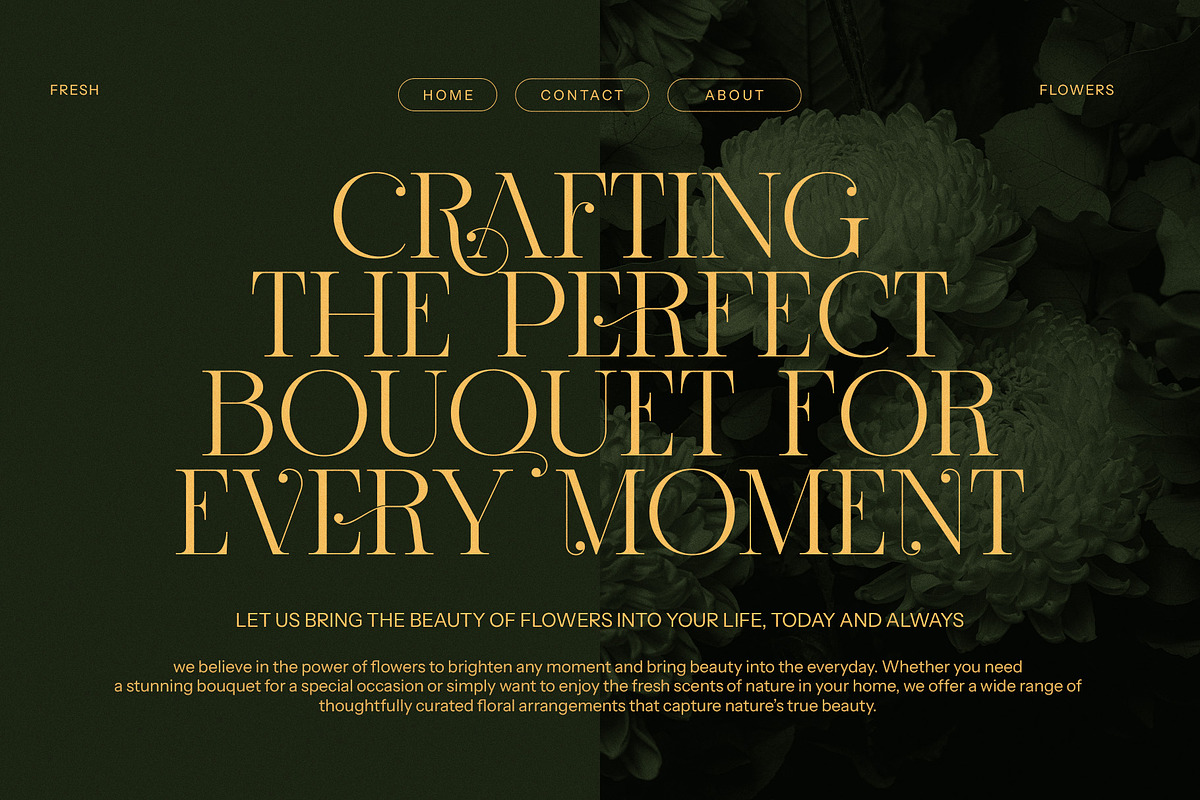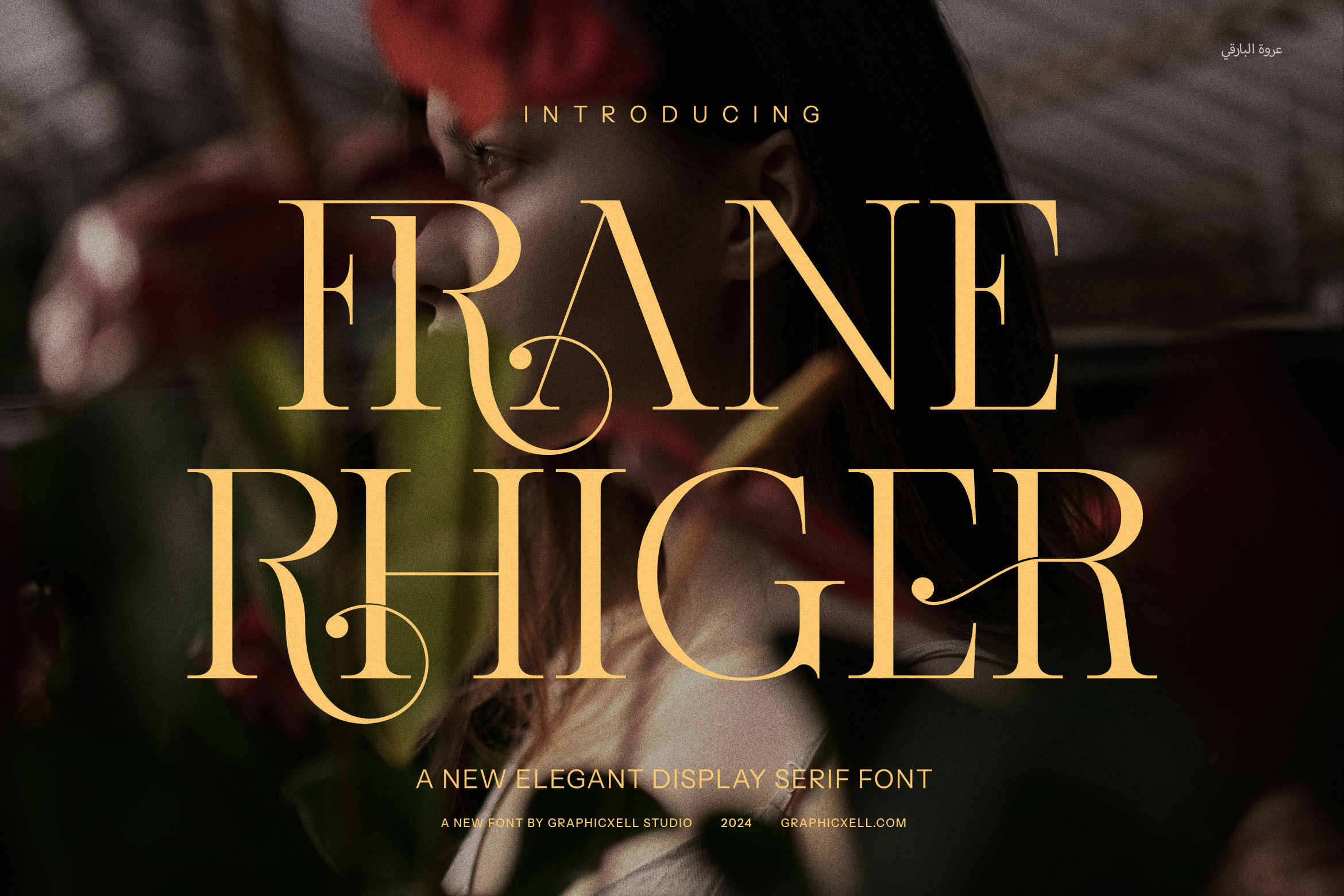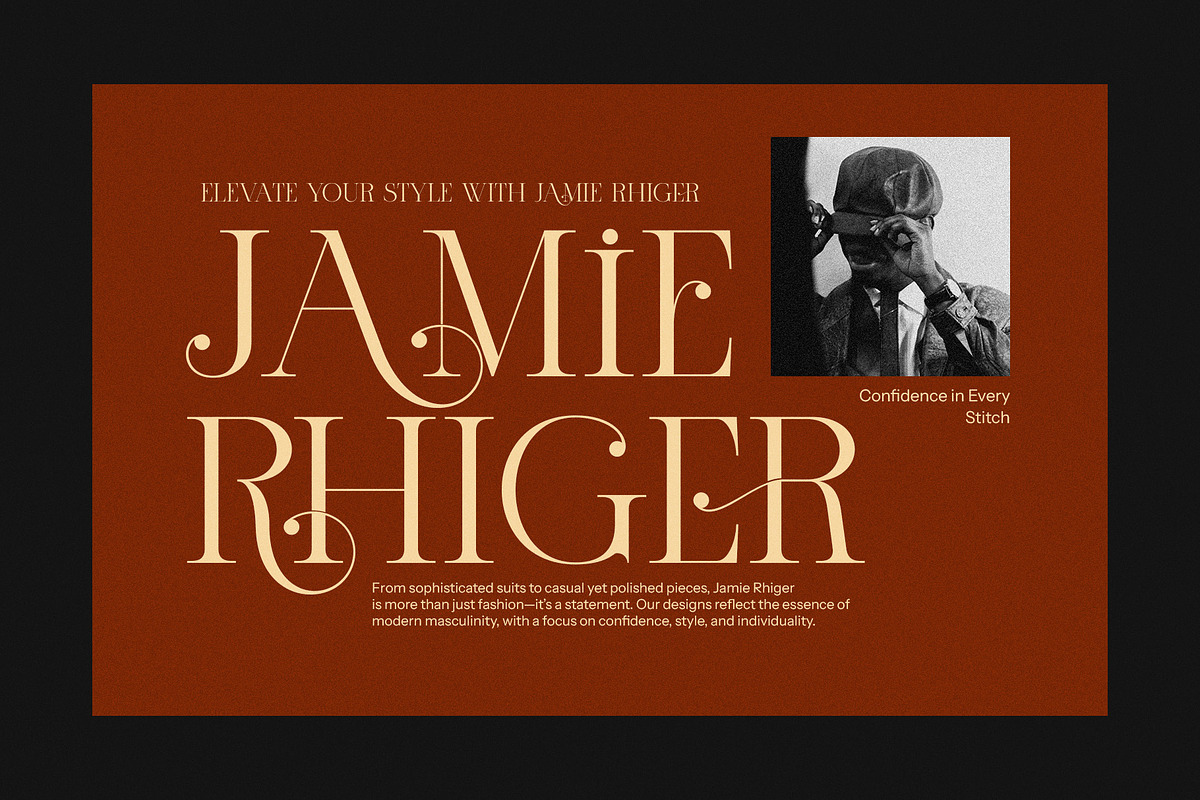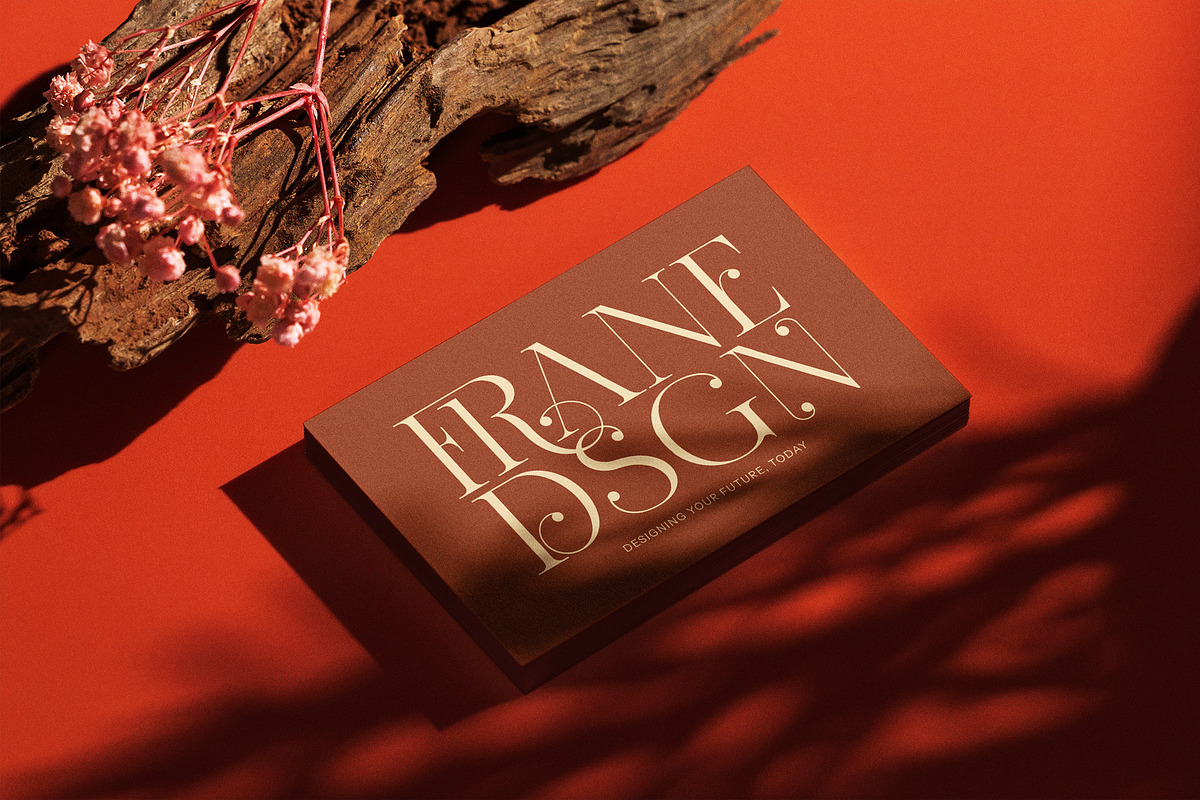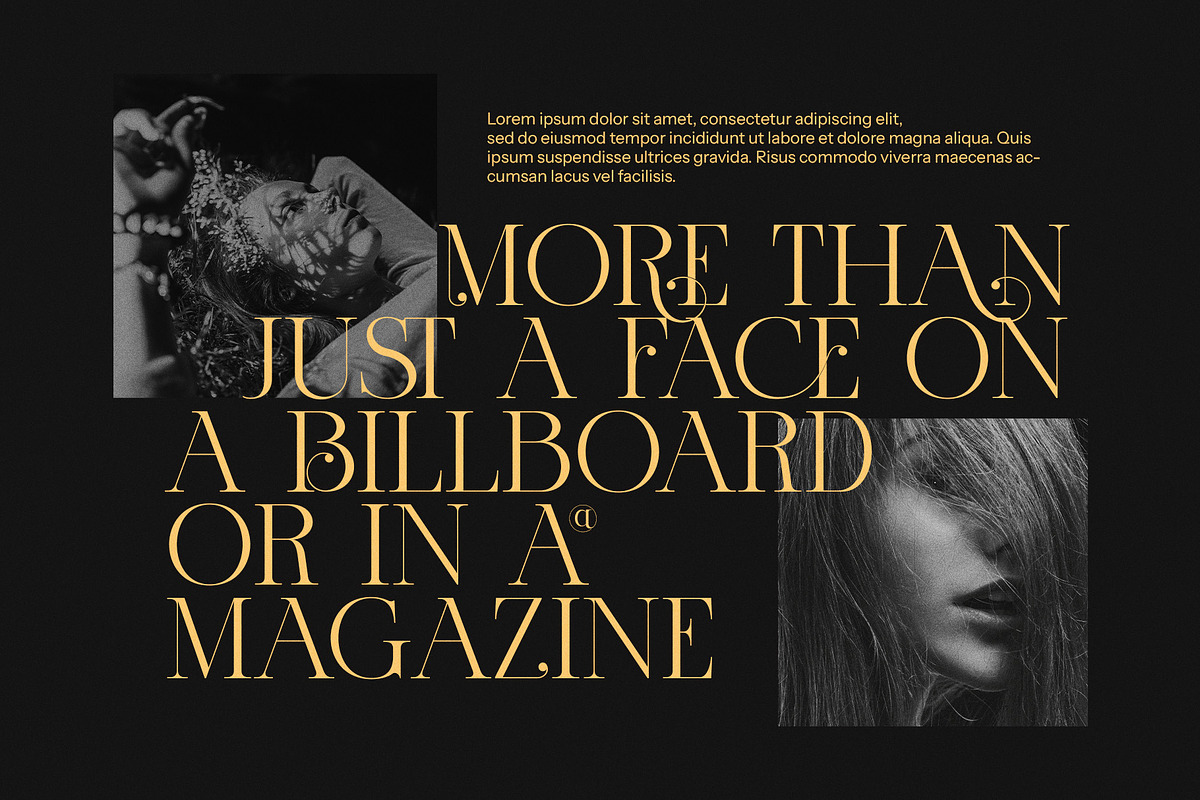
Frane Rhiger Elegant Serif Font
Frane Rhiger Elegant Serif Font is a captivating blend of modern elegance and classic sophistication, crafted to elevate your design projects with its distinctive character. Its sleek serifs and refined contours create a font that is both visually stunning and highly versatile, making it an excellent choice for a wide range of applications.
What makes Frane Rhiger truly exceptional is its exquisite ligatures and alternates, which add a unique touch of artistry to every design. These features allow for creative freedom, enabling designers to craft custom looks that exude elegance and style. Whether you’re working on a luxury brand logo, a sophisticated website, or a high-end magazine layout, Frane Rhiger brings a sense of refinement and grace to the table.
Perfectly suited for upscale branding and editorial designs, this font excels in creating a polished and professional impression. Its clean lines and balanced proportions ensure readability, while its artistic details add a layer of sophistication that appeals to discerning audiences. From boutique branding to gourmet food packaging, Frane Rhiger is a versatile tool that enhances the visual appeal of any project.
Frane Rhiger Elegant Serif Font is not just a typeface; it’s a statement of elegance and style. Its modern yet timeless design makes it a standout choice for designers seeking to create compelling, memorable visuals. Whether used in bold headlines or delicate body text, Frane Rhiger delivers a cohesive and elegant look that elevates any design project with its refined aesthetics and impeccable craftsmanship.